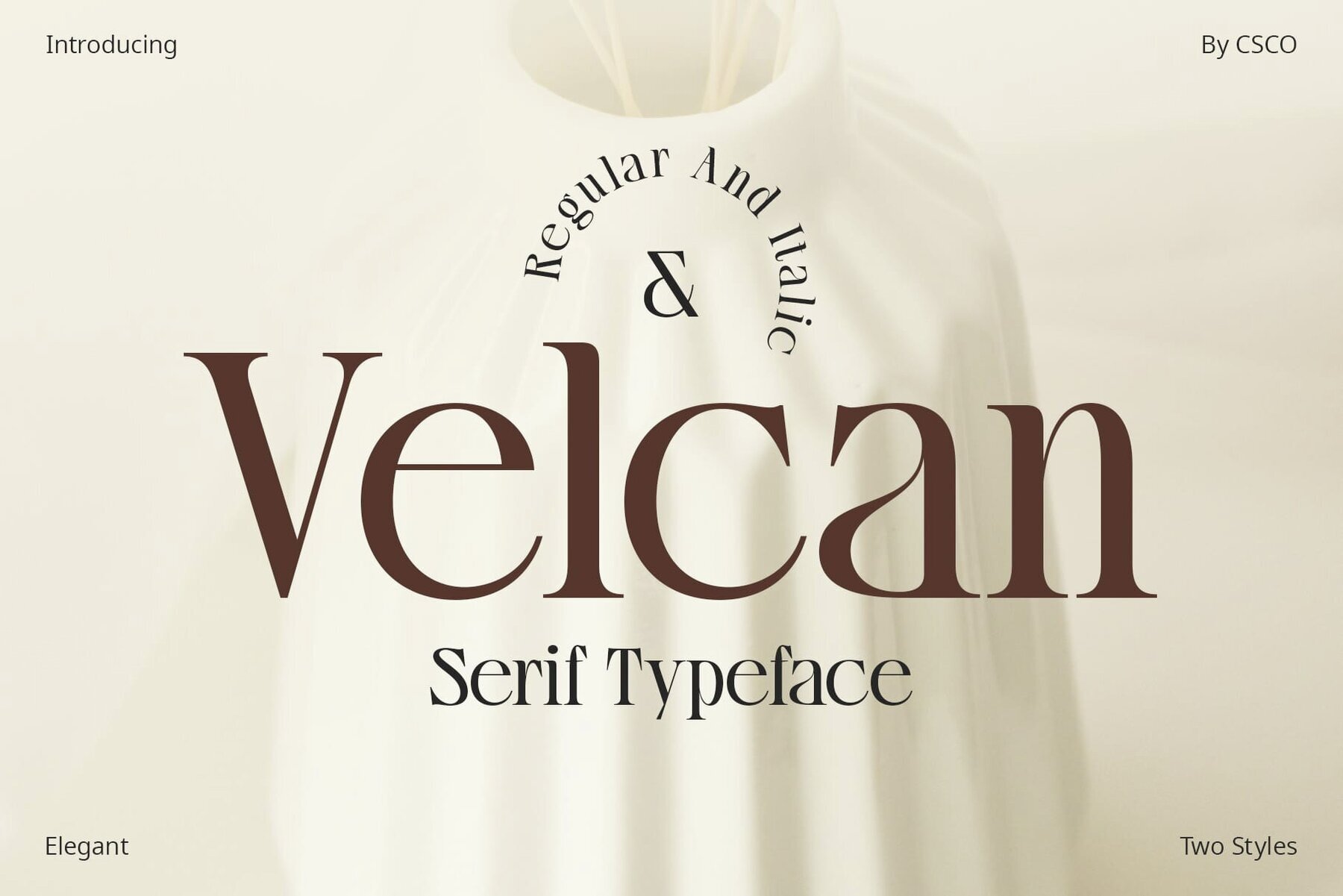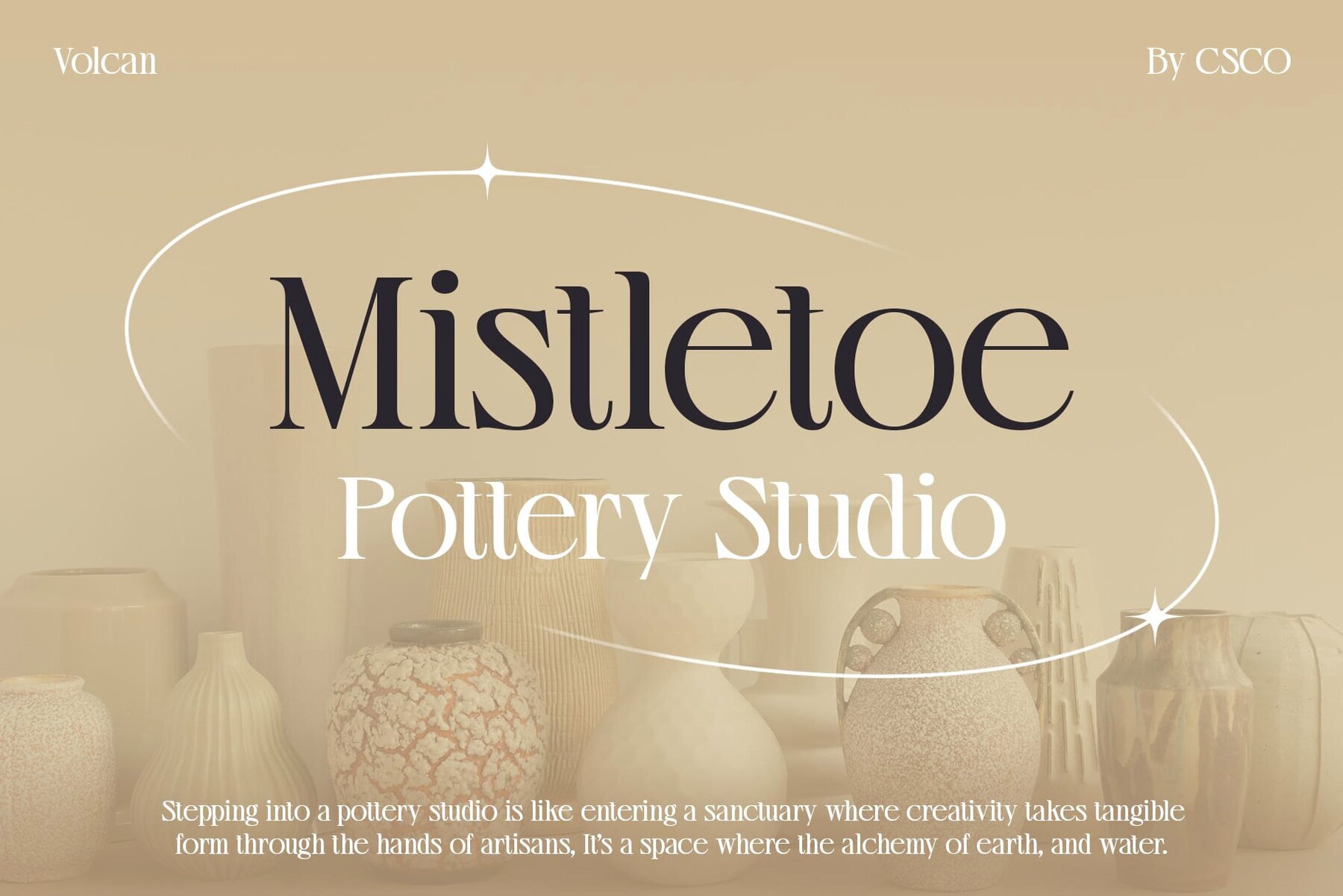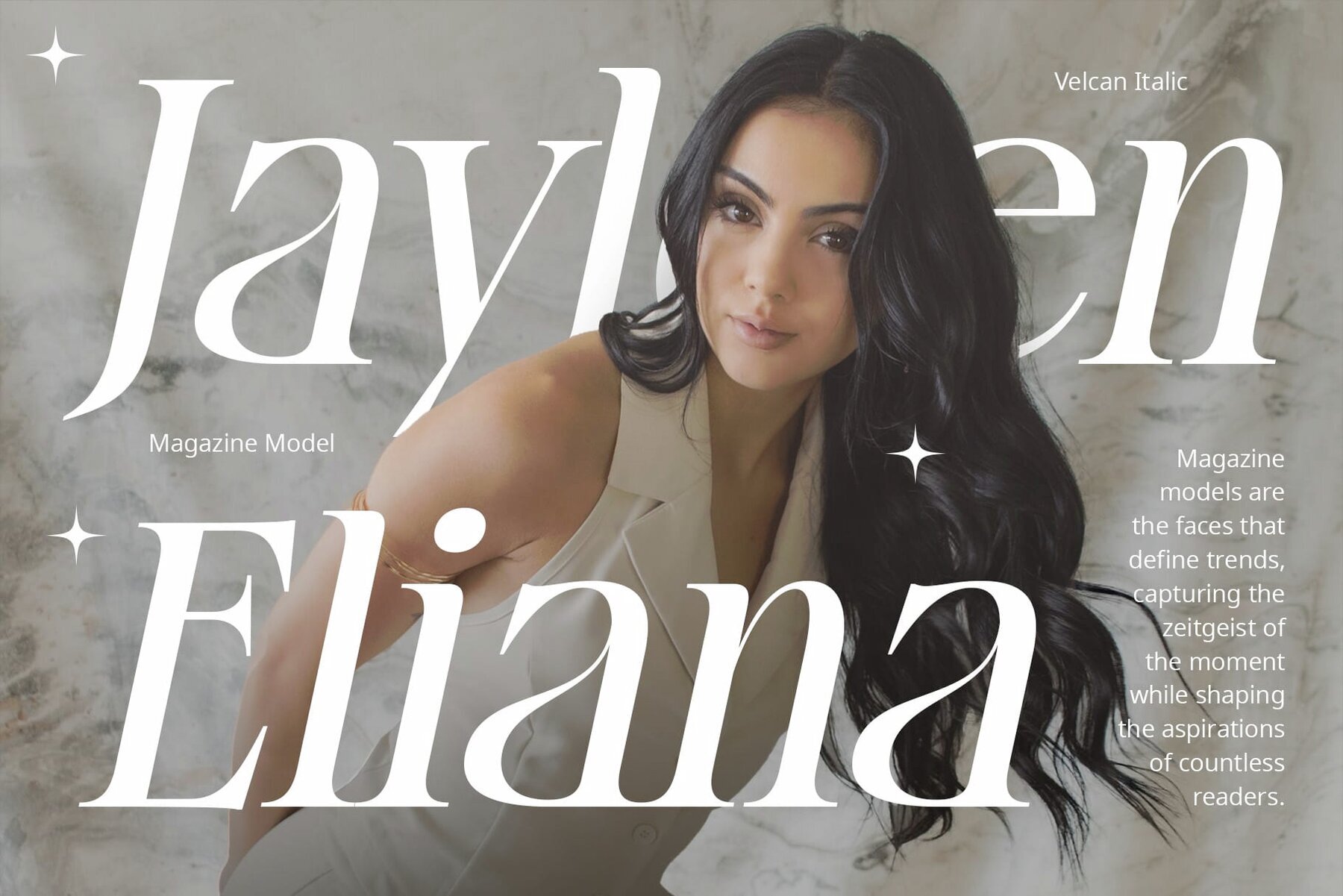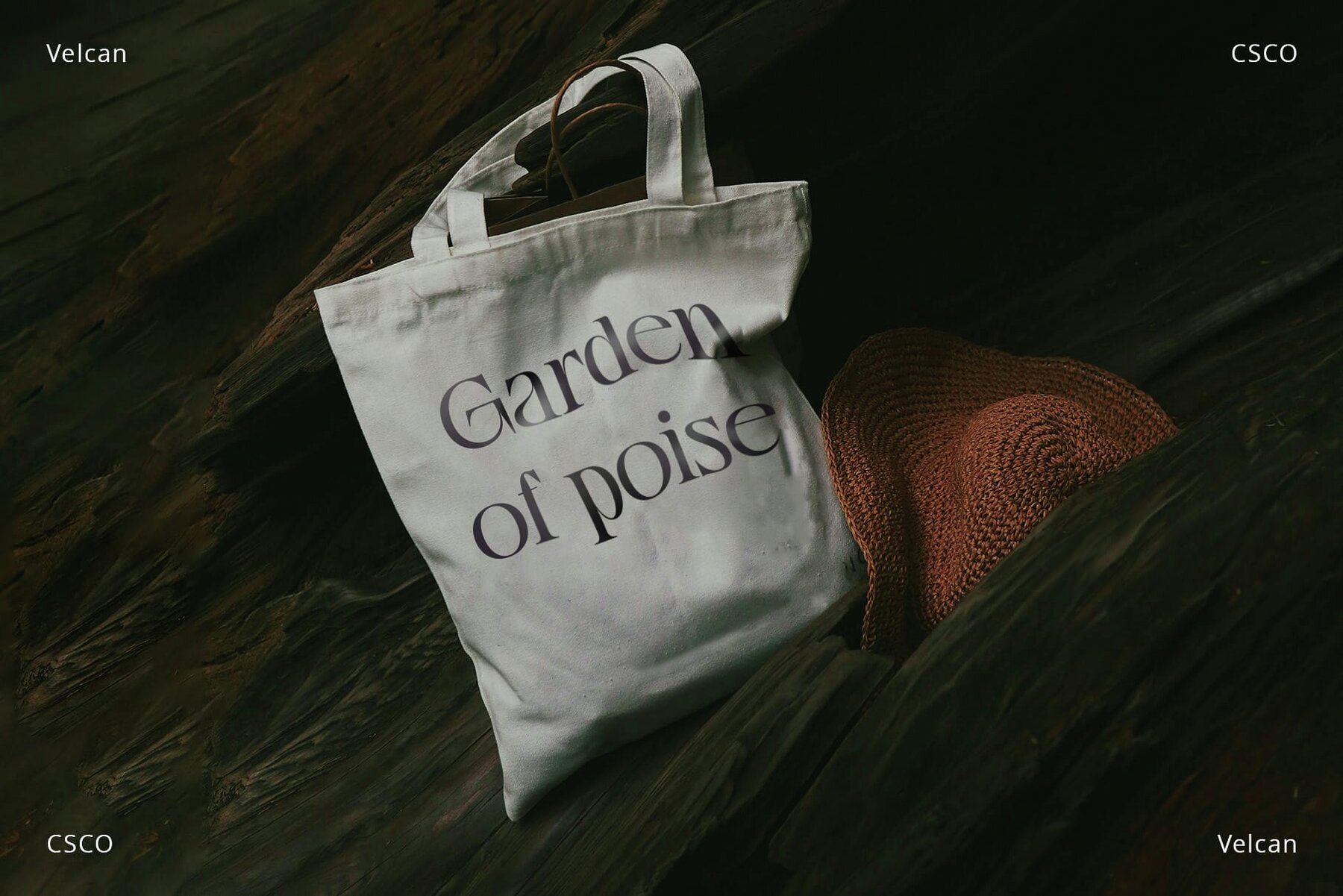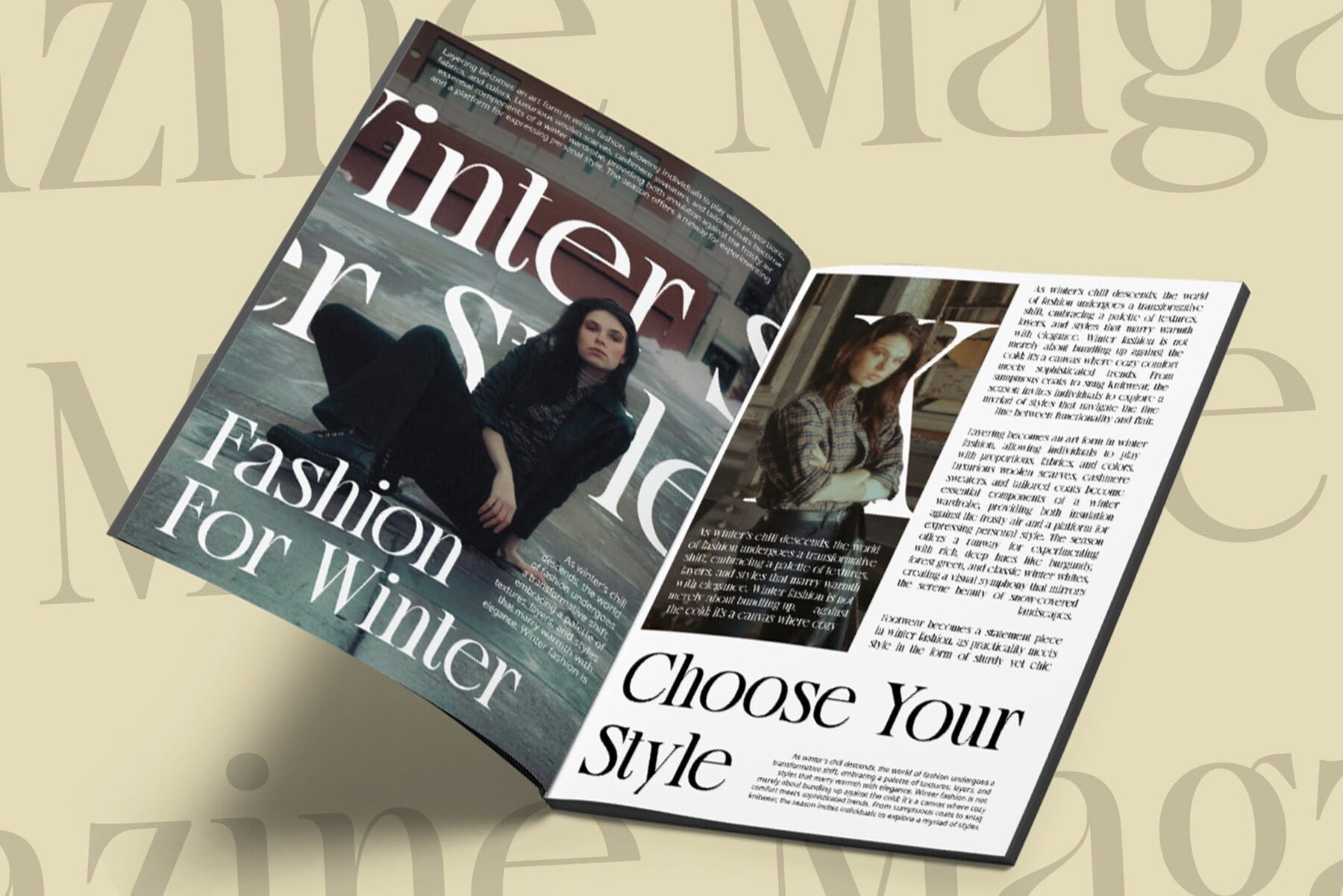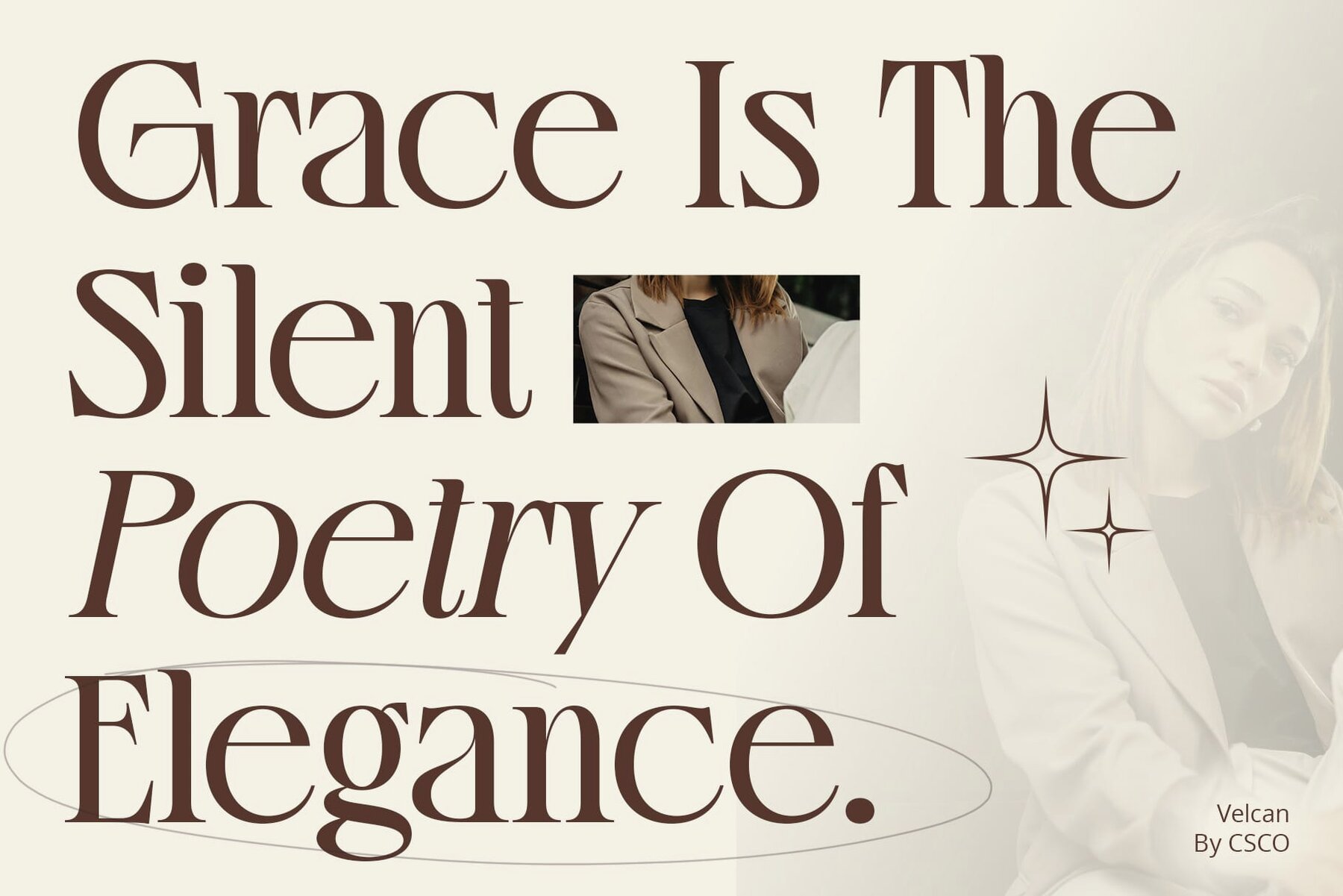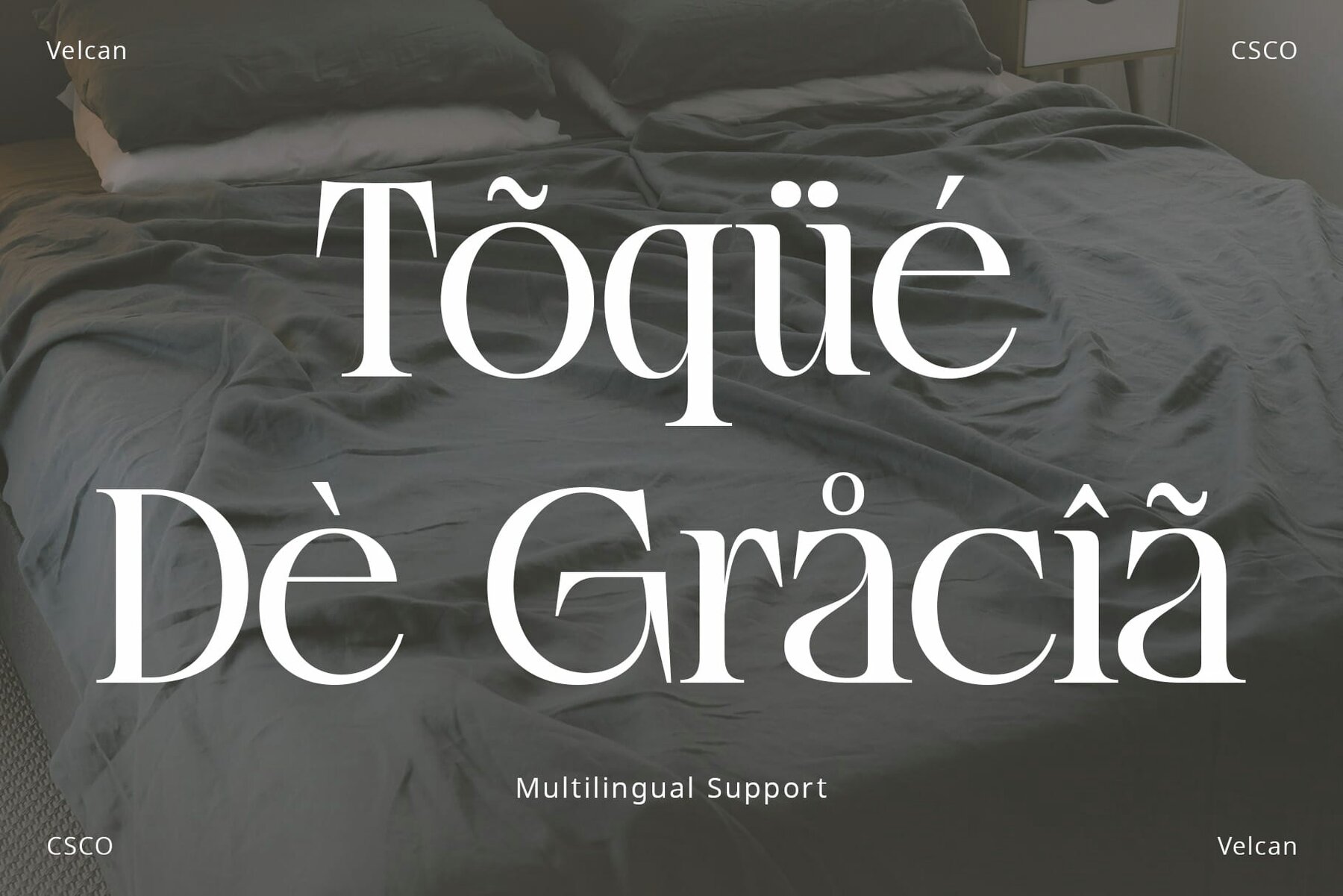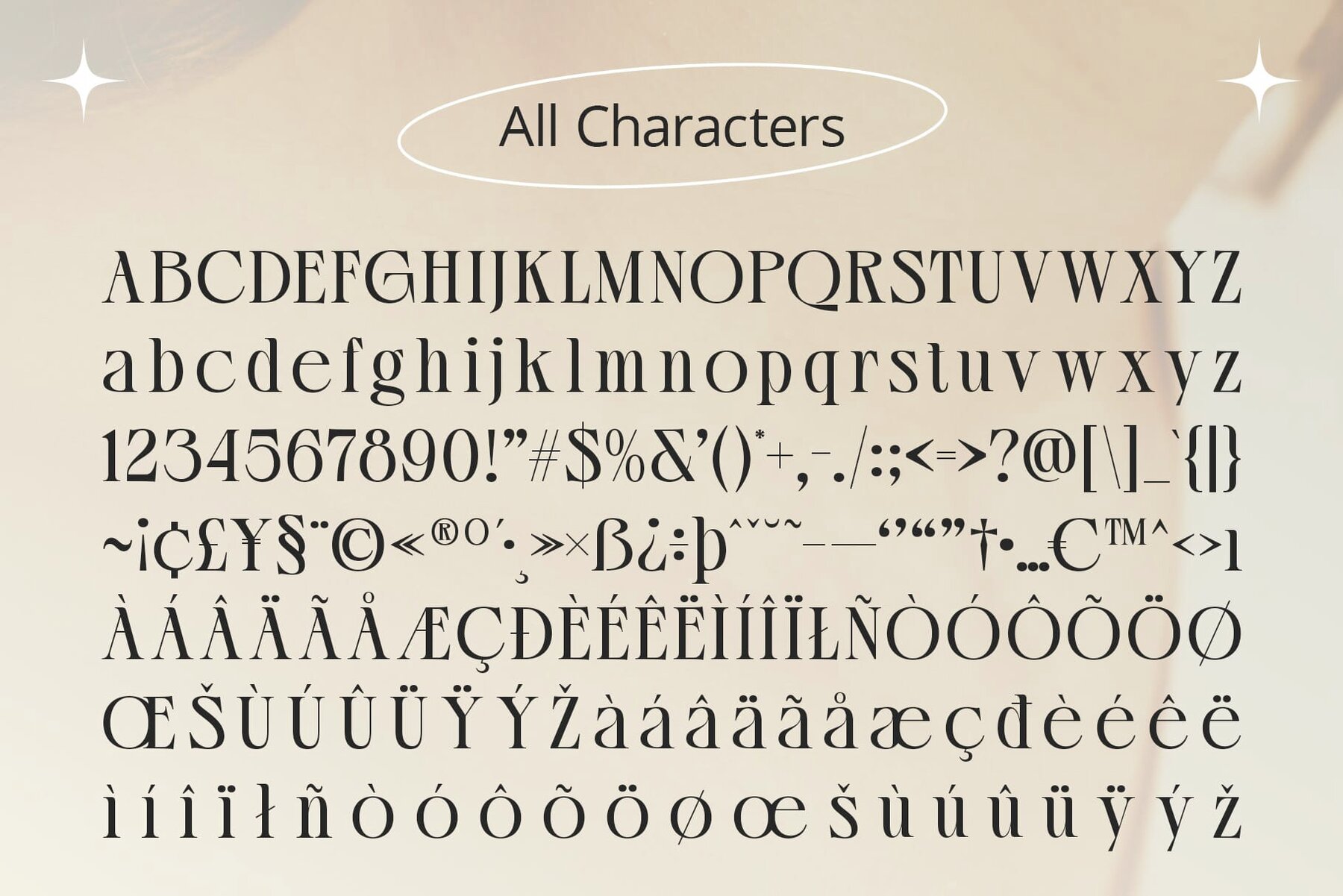
Velcan Font
Velcan is a serif typeface that offers captivating elegance through its graceful curves and refined serifs. It adds a sophisticated touch to any design, balancing traditional beauty with modern functionality. No specialized software is required to use this typeface. If you have any inquiries or need assistance, please feel free to contact us. We appreciate your support in enhancing your creative projects!Velcan: Elegance in High Contrast
Features of Velcan
Typeface Features